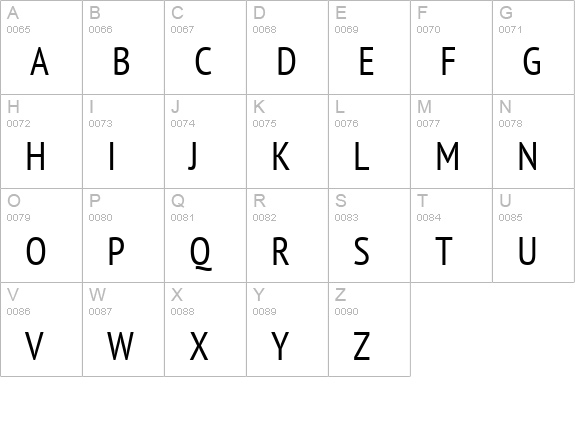
Lloyds Sans Narrow_Pt_sans_regular is a versatile and modern sans-serif font that offers clean lines and readability for a wide range of design projects. With its sleek and narrow letterforms, this font is perfect for headlines, branding, and editorial design. The regular weight provides a balanced and professional look that can easily be incorporated into various design styles.